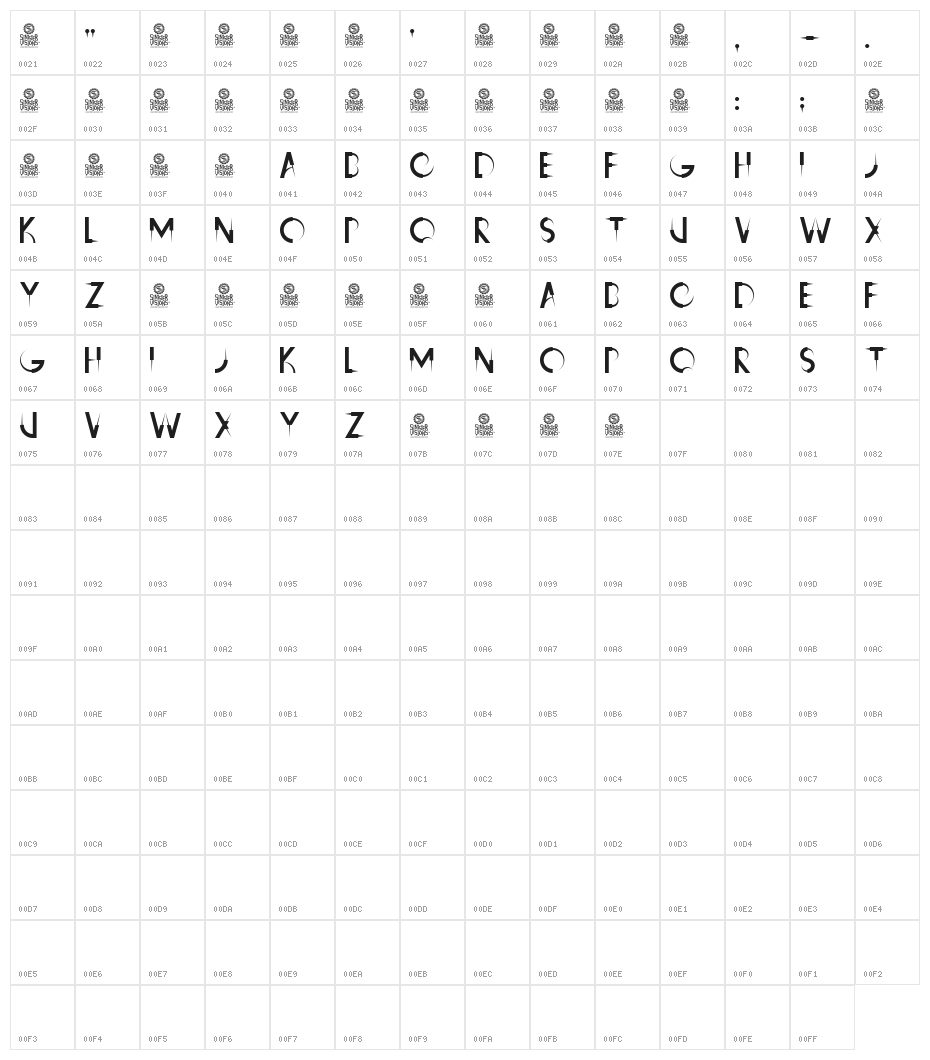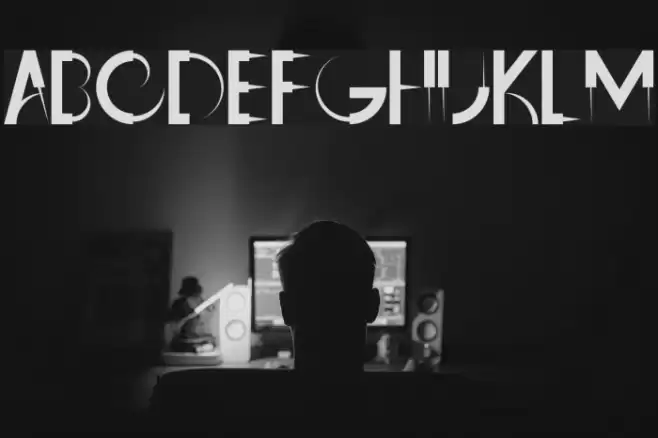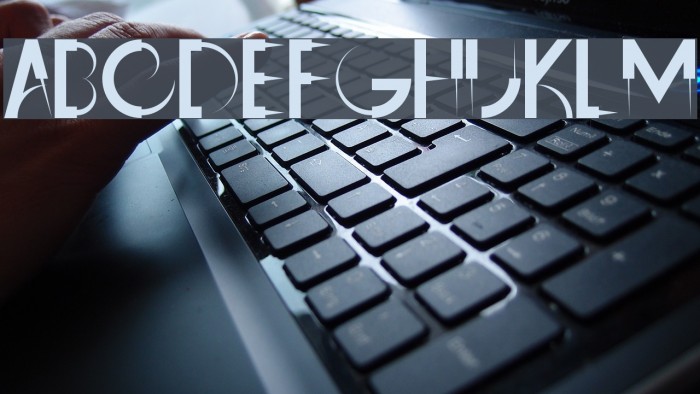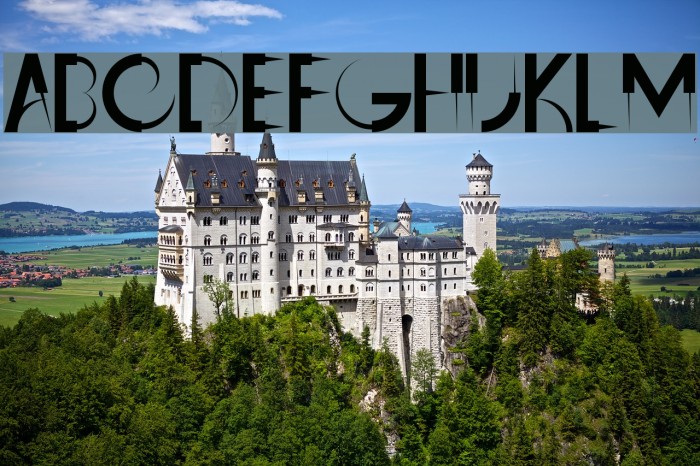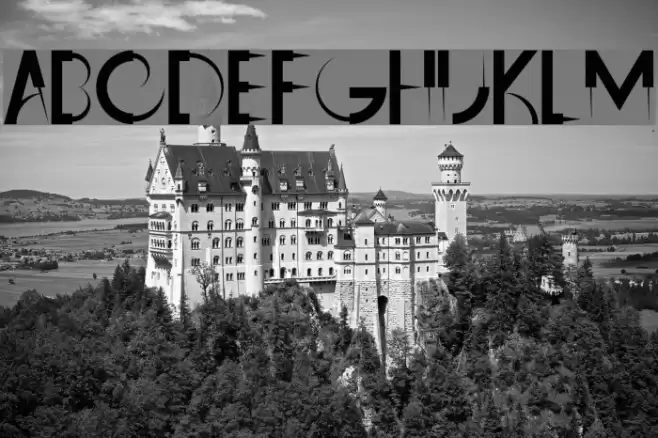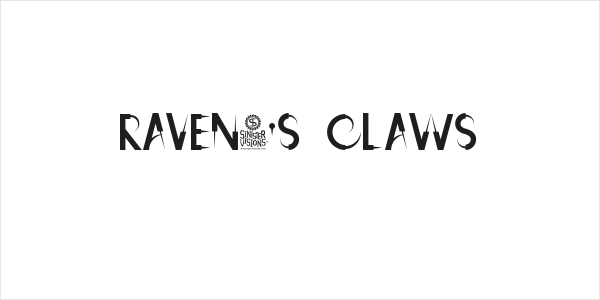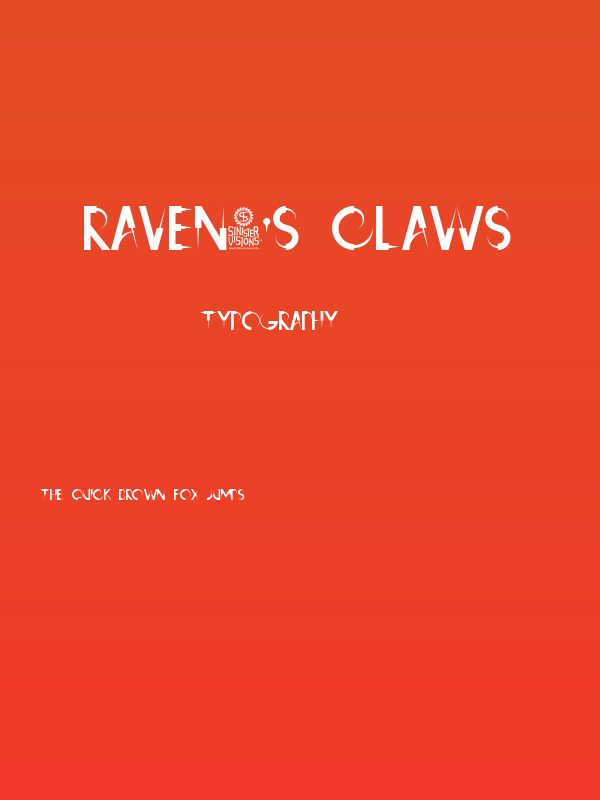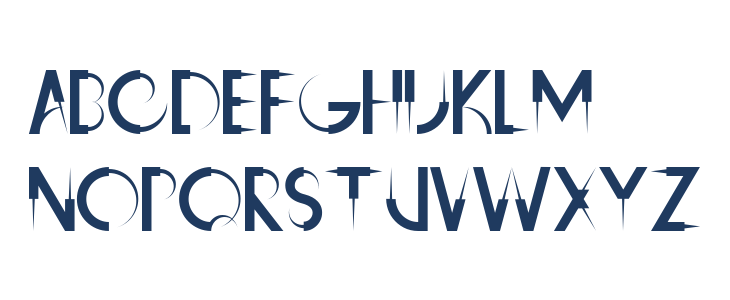
Raven's Claws Font
Raven's Claws Description
This font features a bold and edgy design with sharp, angular lines and pointed serifs that give it a distinct, aggressive appearance. The characters are crafted with a high contrast between thick and thin strokes, creating a dramatic and intense visual impact. The uppercase letters have a unique, claw-like extension that adds to the font's fierce and dynamic style. The overall design is reminiscent of gothic or horror themes, making it suitable for projects that require a dark and mysterious aesthetic. The font maintains a consistent width and spacing, ensuring readability while preserving its striking appearance.
| Overall Style | Gothic, Dramatic, Edgy |
| Proposed Projects | Perfect for horror movie posters, Halloween event flyers, video game titles, or any project needing a dark, dramatic flair. |